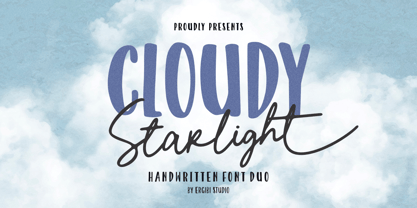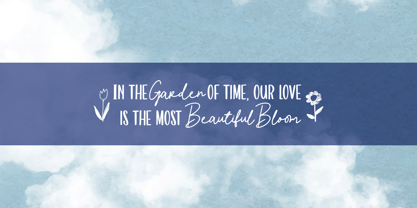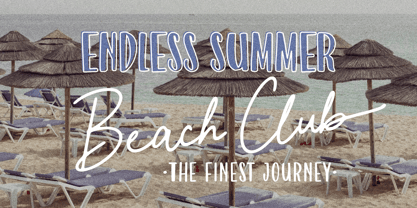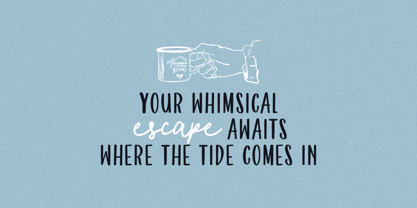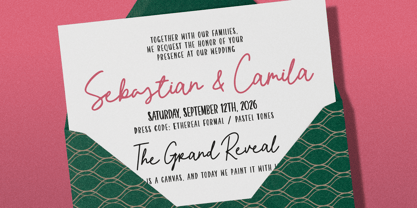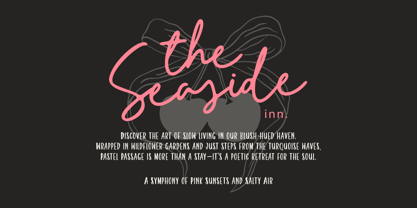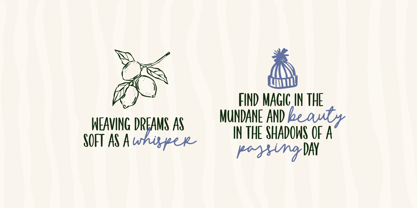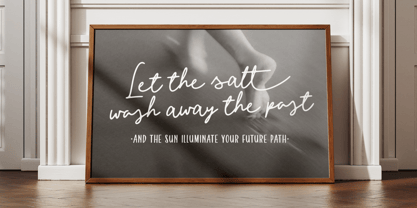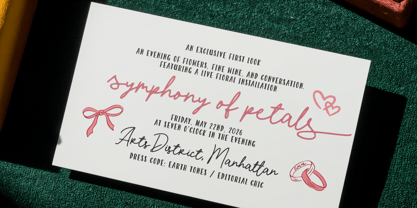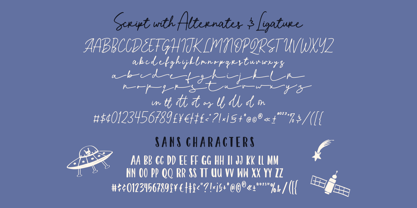
Cloudy Starlight
by Ergibi Studio
The Cloudy Starlight Font Family was designed by Riyadh Rahman and published by Ergibi Studio. Cloudy Starlight contains 2 styles and family package options. More about this family
Cloudy Starlight is a beautifully crafted handwritten font duo that combines a bold, playful display style with a smooth, flowing script, creating a perfect balance between charm and elegance. The strong uppercase characters bring a confident presence, while the handwritten script adds a natural, personal touch that feels warm and expressive. With its versatile style and eye-catching appearance, Cloudy Starlight helps your designs stand out while maintaining a soft and magical feel if you have any questions, don’t hesitate to contact us Ergibi Studio
Designers: Riyadh Rahman
Foundry: Ergibi Studio